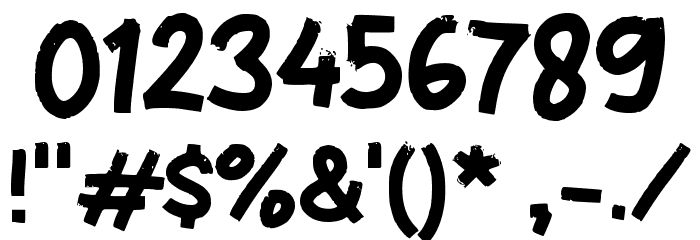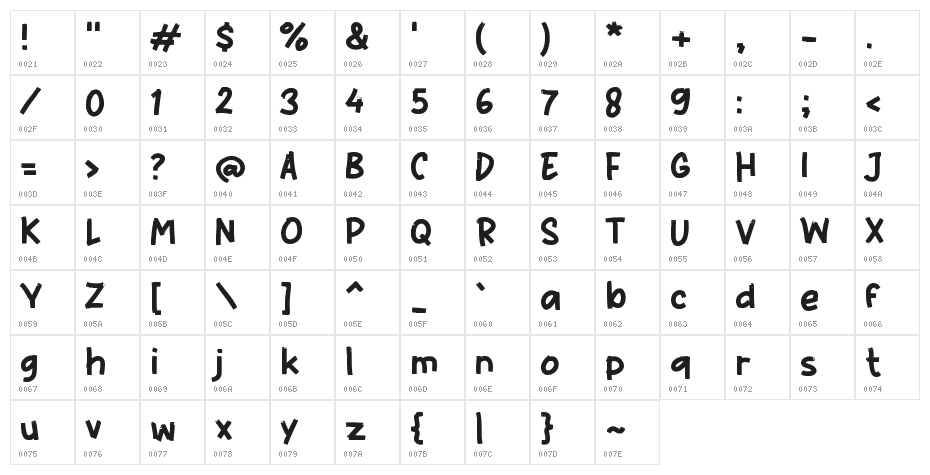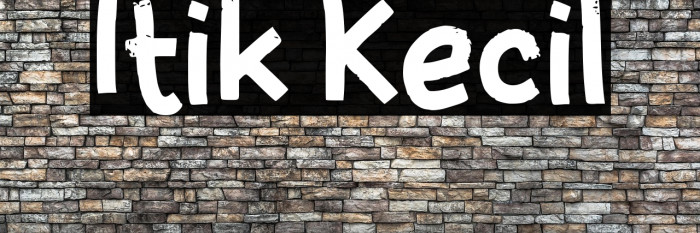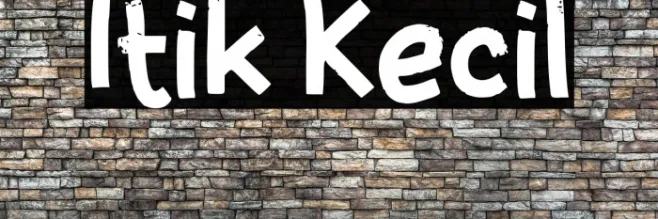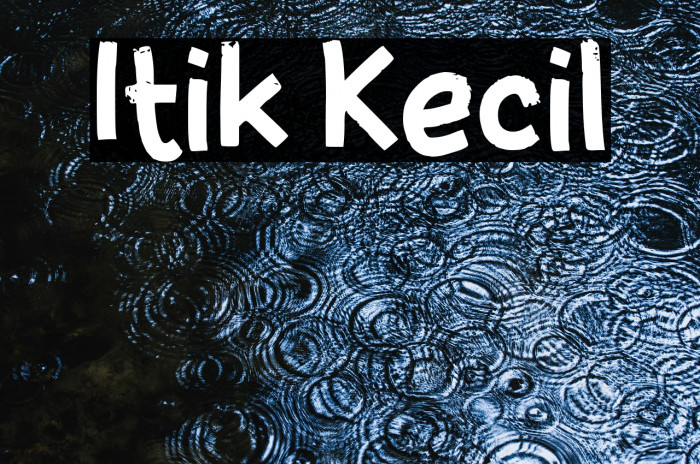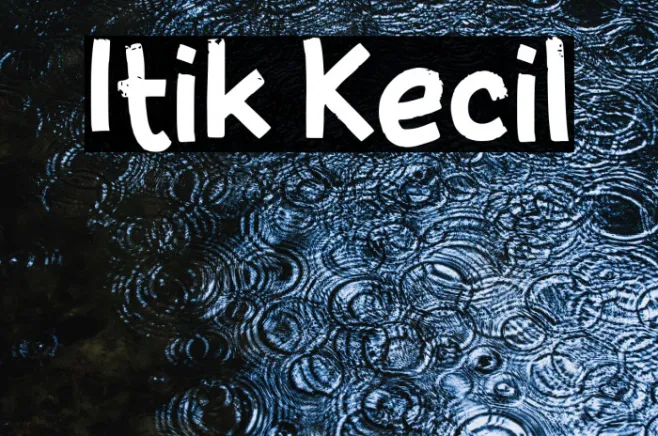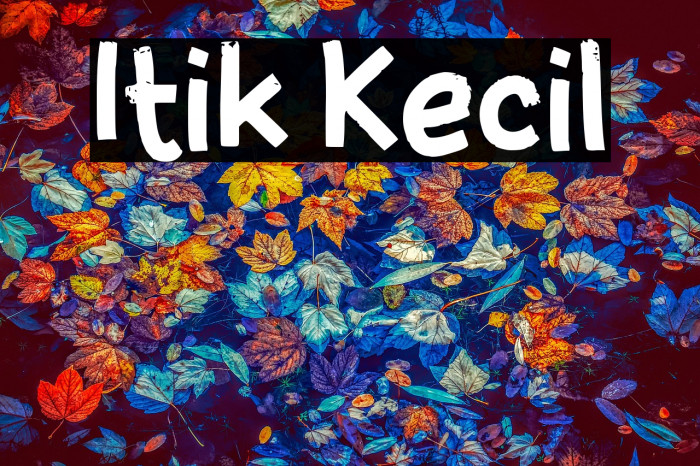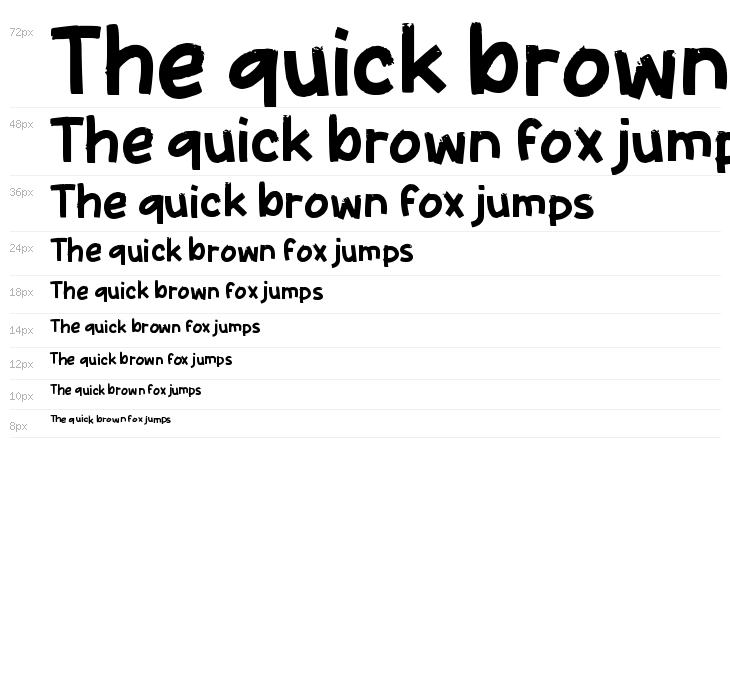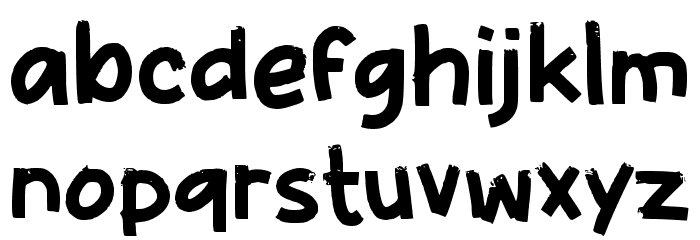
Itik Kecil Font
Itik Kecil Description
This font features a playful and bold handwritten style, characterized by its thick, uneven strokes and slightly irregular letterforms. The letters have a casual, informal appearance, with a slight tilt and varying stroke widths that add to its dynamic and energetic feel. The uppercase and lowercase letters maintain a consistent style, while the numerals and special characters complement the overall design. The font's organic and lively nature makes it suitable for projects that require a touch of personality and creativity.
Overall StylePlayful
Proposed ProjectsIdeal for children's books, playful branding, casual invitations, and creative posters.